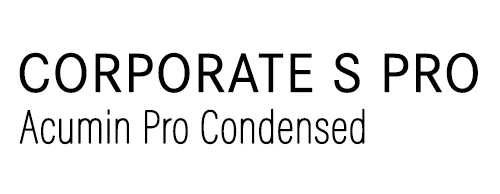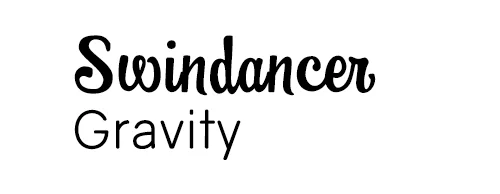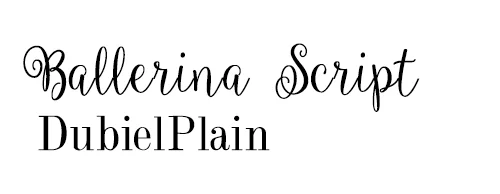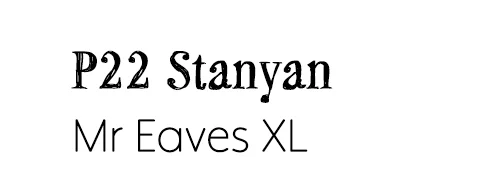
Find a so called super family and youll have a ready made range of weights styles and classifications that are specifically designed to work together.
Script font pairing. Selecting two or more fonts which work well is one thing selecting two which work together to achieve your typographic aims may have you reaching for the aspirin. You can copy and paste your own content in to see what it looks like with these font combinations. Simply click anywhere in the paragraph or heading text and start typing. Sans serif serif font combinations.
3 pair handwritten script fonts with plain fonts. Pairing script fonts with complimentary typefaces can be tricky. First you have to find a beautiful legible script font. Thats a tall order because some have letters that dont match up properly with each other have uneven spacing in between letters or have characters that are downright unreadable.
The sidekick is the plain font you pair it with. Keep your hand lettered text to a minimum. One more bonus tip for using handwritten script fonts. Canva has taken the pain out of font pairing by putting together great font combos for your designs.
2 rockwell bold bembo one of the classic slab serifs rockwell was designed by the monotype corporation in 1934 and has a tremendous amount of personality and attention grabbing potential when used in bold. The star is your gorgeous handwritten font. The easiest way to find perfect font pairings is by using different fonts within the same overarching typeface family. The goal of font pairing is to select fonts that share an overarching theme yet have a pleasing contrast.
Pennington bay by isaac forman. Click generate to create a new font pairing lock to lock fonts that you want to keep and edit to choose a font manually. Find the best matches to your favourite typeface. This font is also very elegant and its very thin lettering brings the perfect balance between the two font styles.
Dont make your star compete for attention. Get more tips on font pairing. With that out of the way lets move on to the 50 perfect font combinations to kickstart your next design. Lets see if we can alleviate any headaches.
The text is editable try replacing it with your company name or other copy. Start using quotation marks the correct way pairing fonts can be a challenge. Dancing script with josefin sans a very memorable font that creates a feeling of movement and intrigue dancing script should be paired with a sans serif font like josefin sans. Work sans and work sans as used on red elegant.
Heres a visual representation of the different types of fonts discussed in this post.